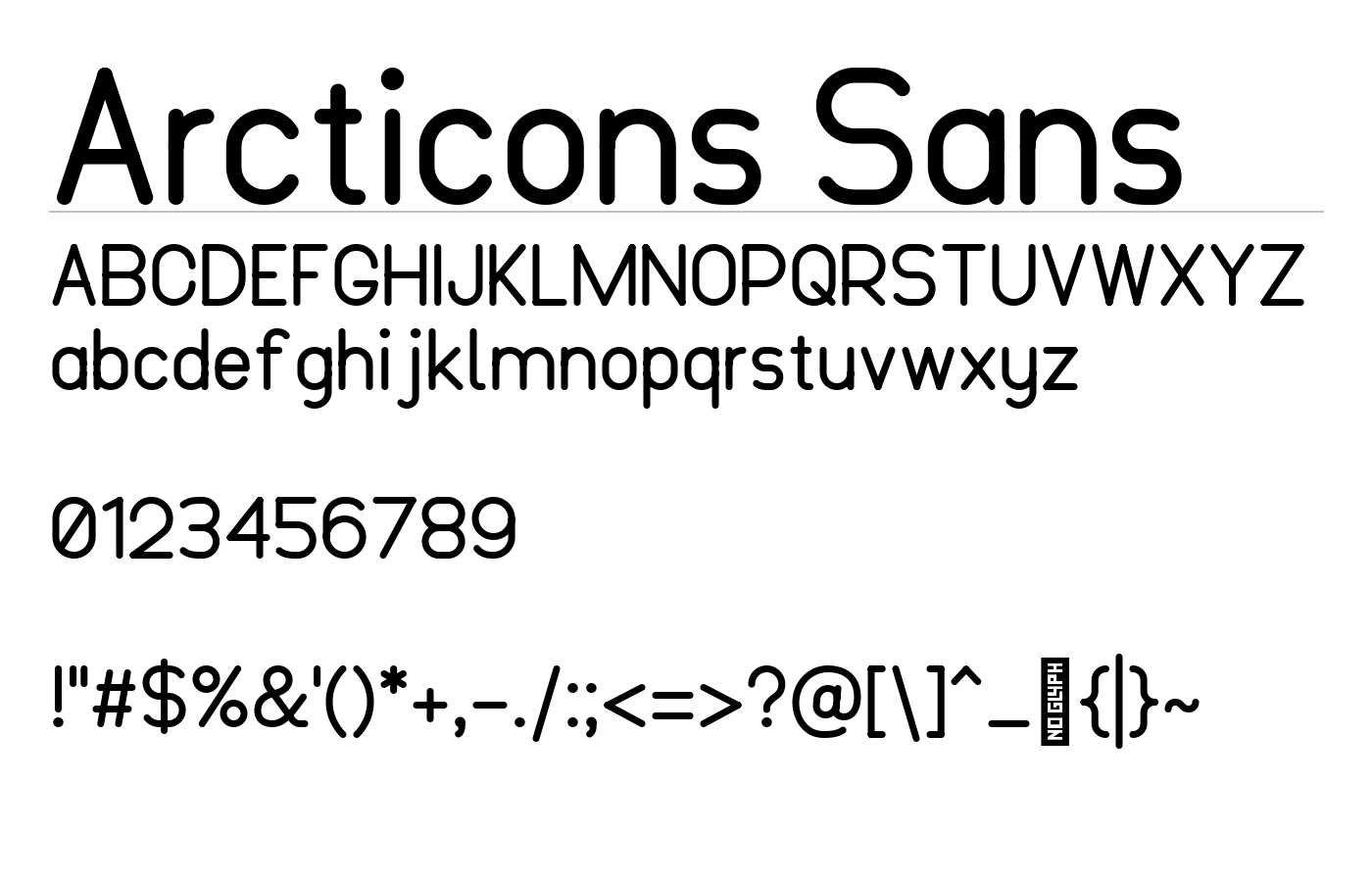
Arcticons Sans is a clean, modern sans serif with a light to regular weight and a slightly condensed width that gives it a neat, organized feel. Its rounded terminals and low contrast strokes create a friendly, approachable look, while the consistent x-height and simple geometric shapes ensure excellent readability. This font works well for tech branding, user interfaces, and contemporary editorial design where clarity and a warm, modern tone are key.
Arcticons Sans Font
About Arcticons Sans Font